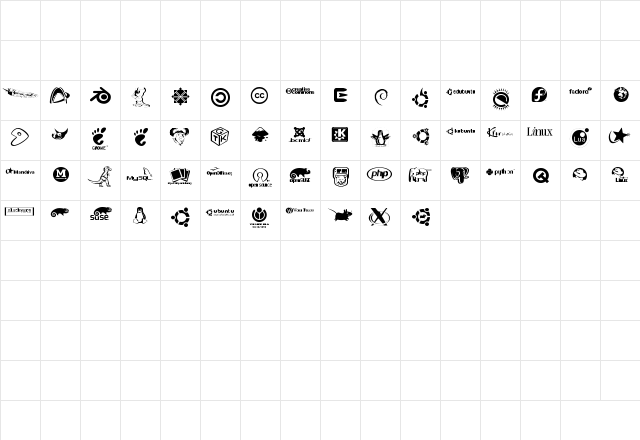
OpenLogos Regular
Design Context for OpenLogos Typeface
OpenLogos is a composed and adaptable typeface that performs quietly and consistently across a wide range of design contexts.